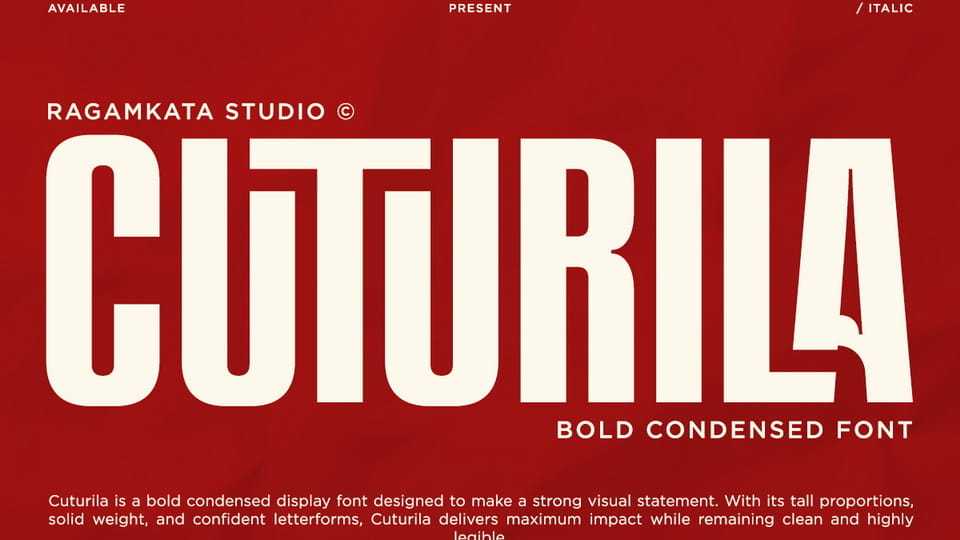
Download Cuturila font, a bold condensed display typeface crafted to deliver instant visual impact. Designed with tall proportions and strong vertical rhythm, this typeface commands attention at first glance